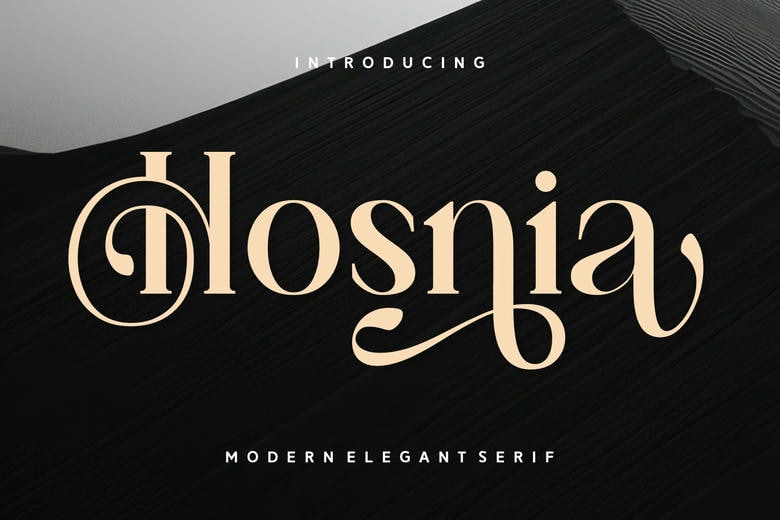
Hosnia Font
Hosnia is a contemporary sophisticated serif typeface that has a luxurious combination of sophisticated letterforms and artistic swashes. With elegant curves, innovative ligatures, and daring elegance, Hosnia is perfect in branding, packaging, fashion editorials, wedding invitations, and high-end logos. This typeface strikes the perfect balance between timeless elegance and stylish creativity.
Hosnia Serif Font